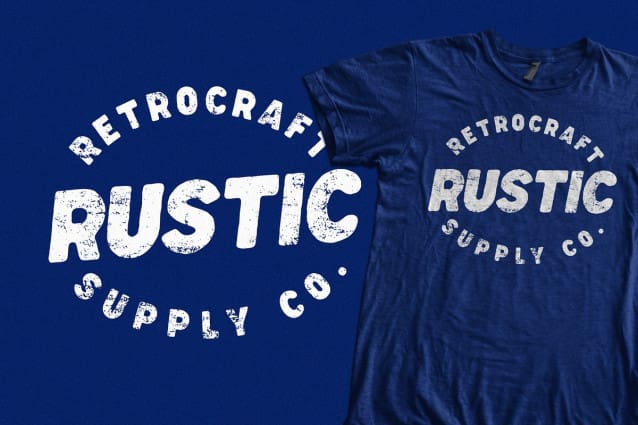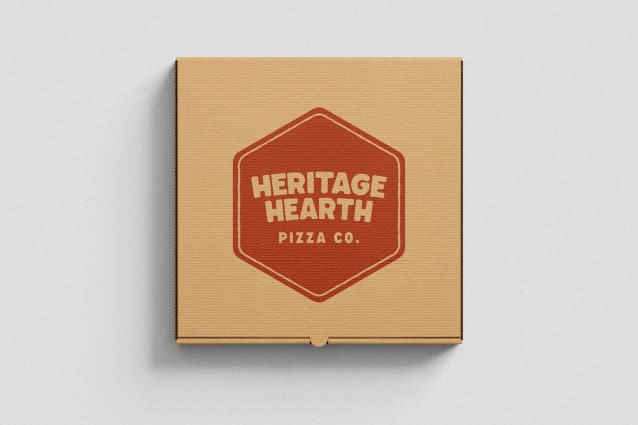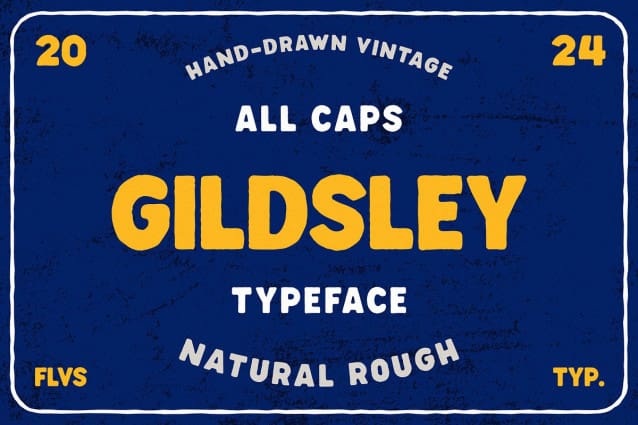
Gildsley Display Font
Gildsley Display Font, a Sans Serif font exuding Rough Vintage Style. This versatile typeface is perfect for adding a nostalgic touch to a wide range of design projects.
Gildsley is an bold all caps typeface character set renowned for its versatility.
Craft vintage-inspired logos, labels, posters, and signage with its bold uppercase letters glyphs.
Whether you’re creating branding materials for a retro-themed event or designing eye-catching merchandise.